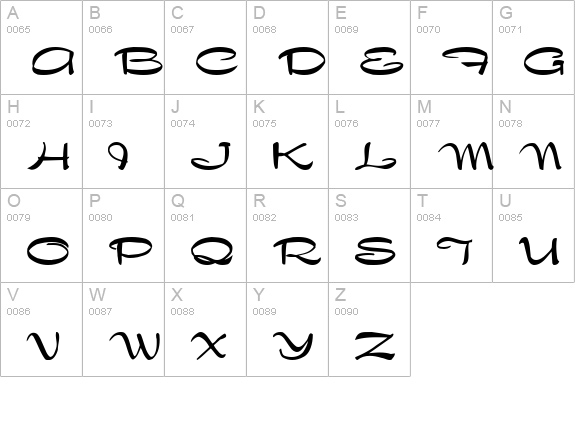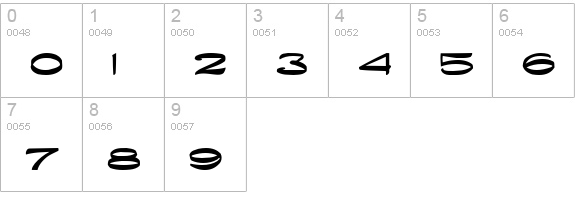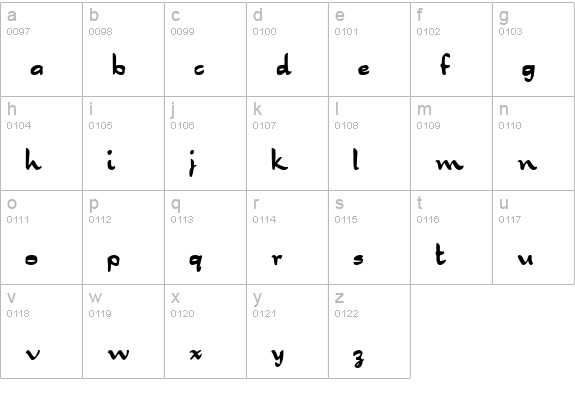
DragonwyckCondensed Bold Font Details
DragonwyckCondensed Bold is a strong, high-contrast variant in the DragonwyckCondensed typeface family \xE2\x80\x94 well suited to headlines, attention-grabbing titles, and strong calls-to-action.
DragonwyckCondensed Bold font is a stylish and modern typeface that exudes elegance and sophistication. With its bold and condensed design, this font is perfect for creating eye-catching headlines, titles, and branding materials. The strong and sleek letterforms of DragonwyckCondensed Bold make it a versatile choice for a wide range of design projects. The best part? DragonwyckCondensed Bold font is available for free download at FontsMarket.com. Whether you're working on a professional project or simply looking to add a touch of flair to your personal designs, this font is sure to make a statement. Don't miss out on the opportunity to enhance your typography with this striking and impactful typeface. Download DragonwyckCondensed Bold today and take your designs to the next level.